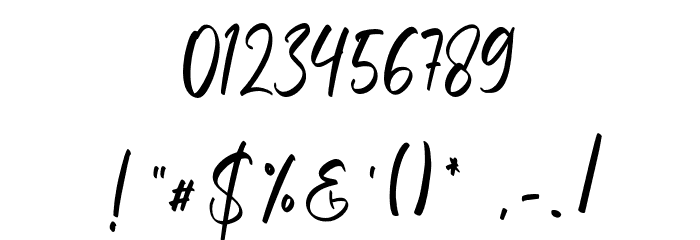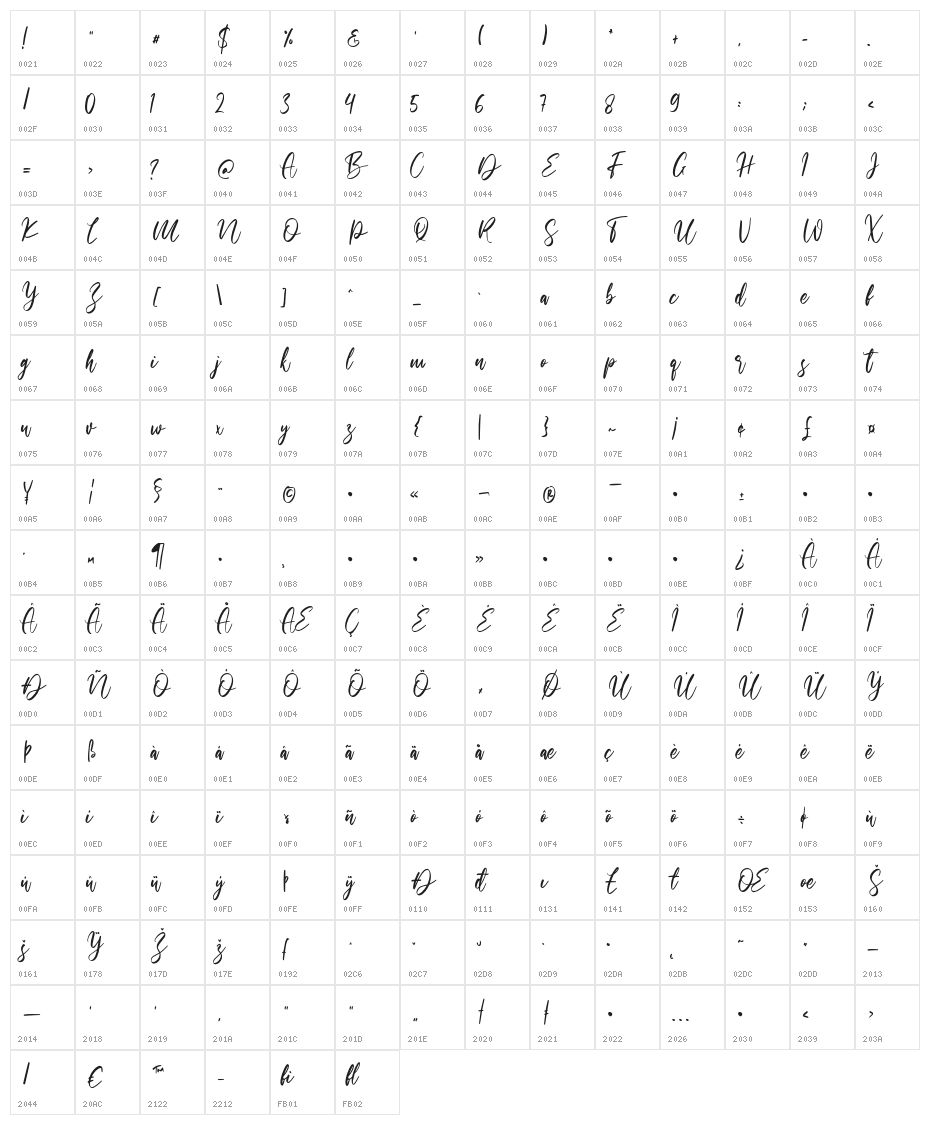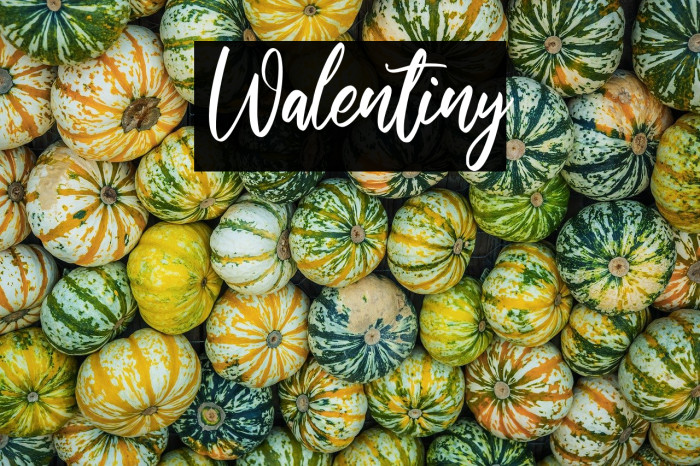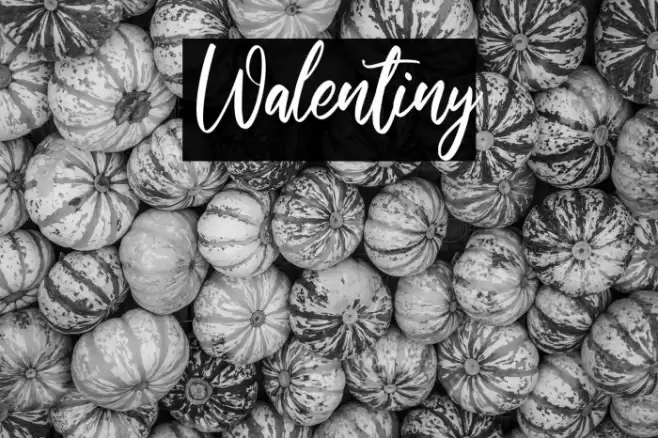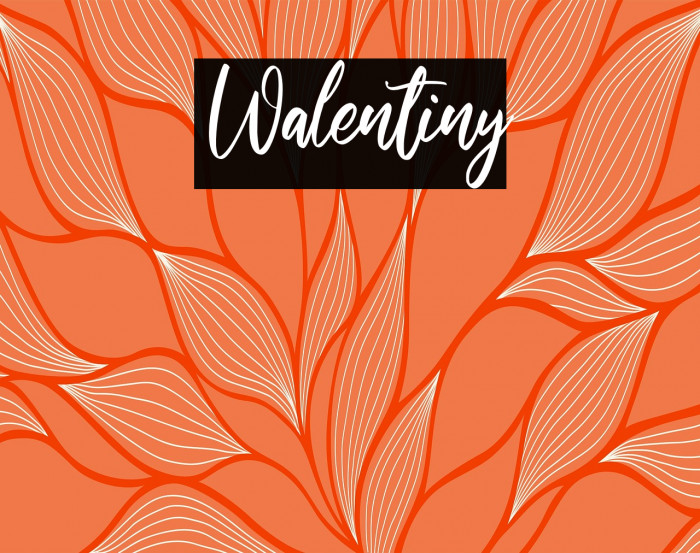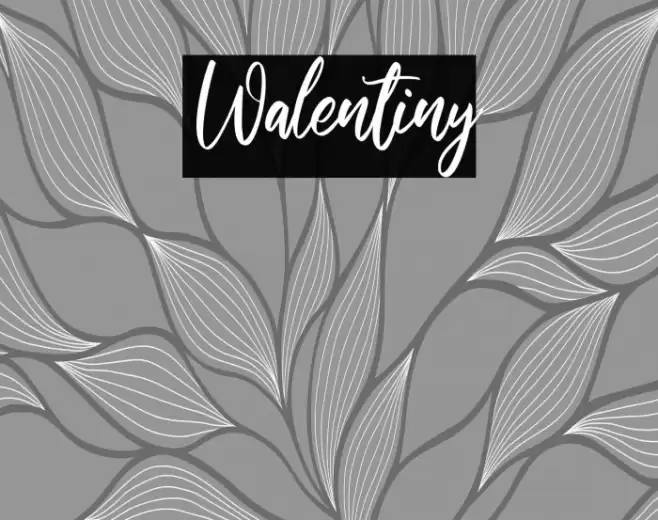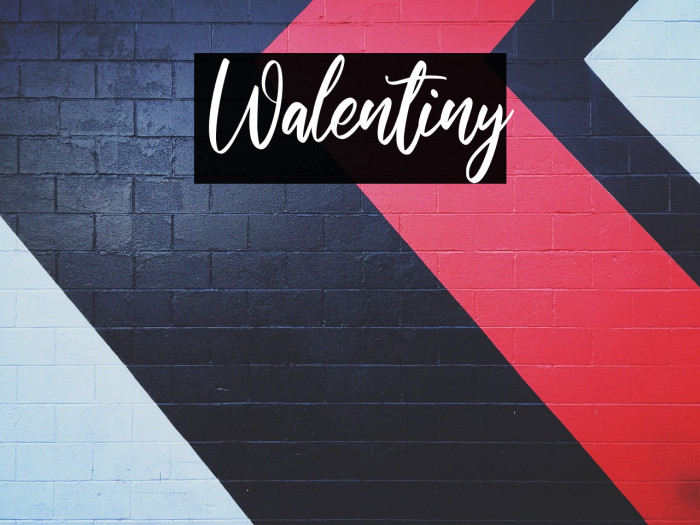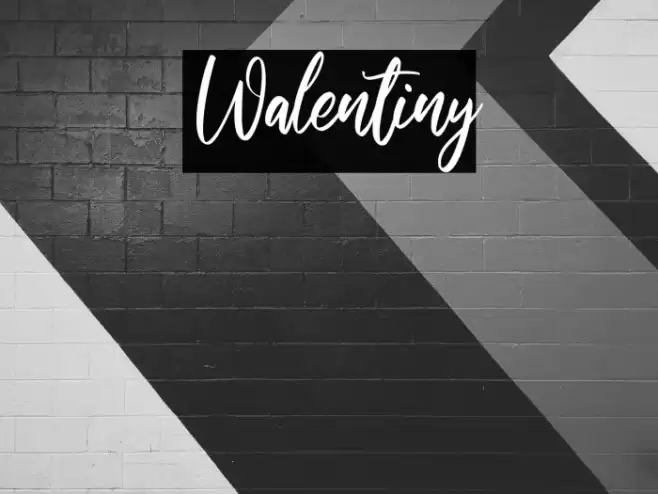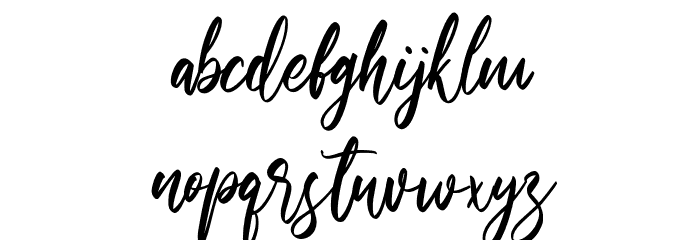
Walentiny Font
Walentiny Description
This font exudes a charming and elegant handwritten style, characterized by its fluid, cursive strokes and a playful yet sophisticated appearance. The uppercase letters are tall and slightly slanted, giving a sense of movement and grace. The lowercase letters maintain a consistent flow, with smooth connections between each character, enhancing the script's readability. The numerals are well-balanced, complementing the overall aesthetic. Special characters are thoughtfully designed, maintaining the font's cohesive look. This font is perfect for projects that require a personal touch, such as invitations, greeting cards, or branding materials.
| Overall Style | Elegant, Playful |
| Use Case | Headlines, Invitations, Branding |
| Proposed Projects | Ideal for wedding invitations, greeting cards, branding, and personal stationery. |